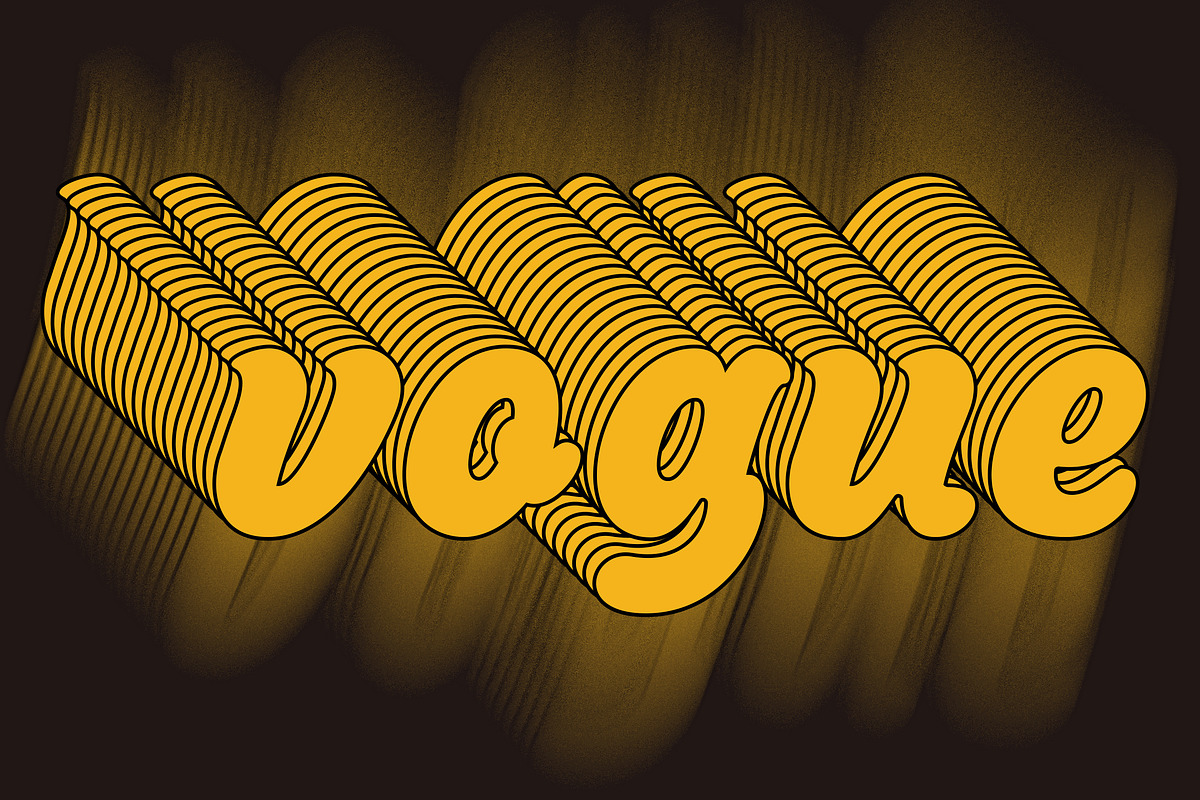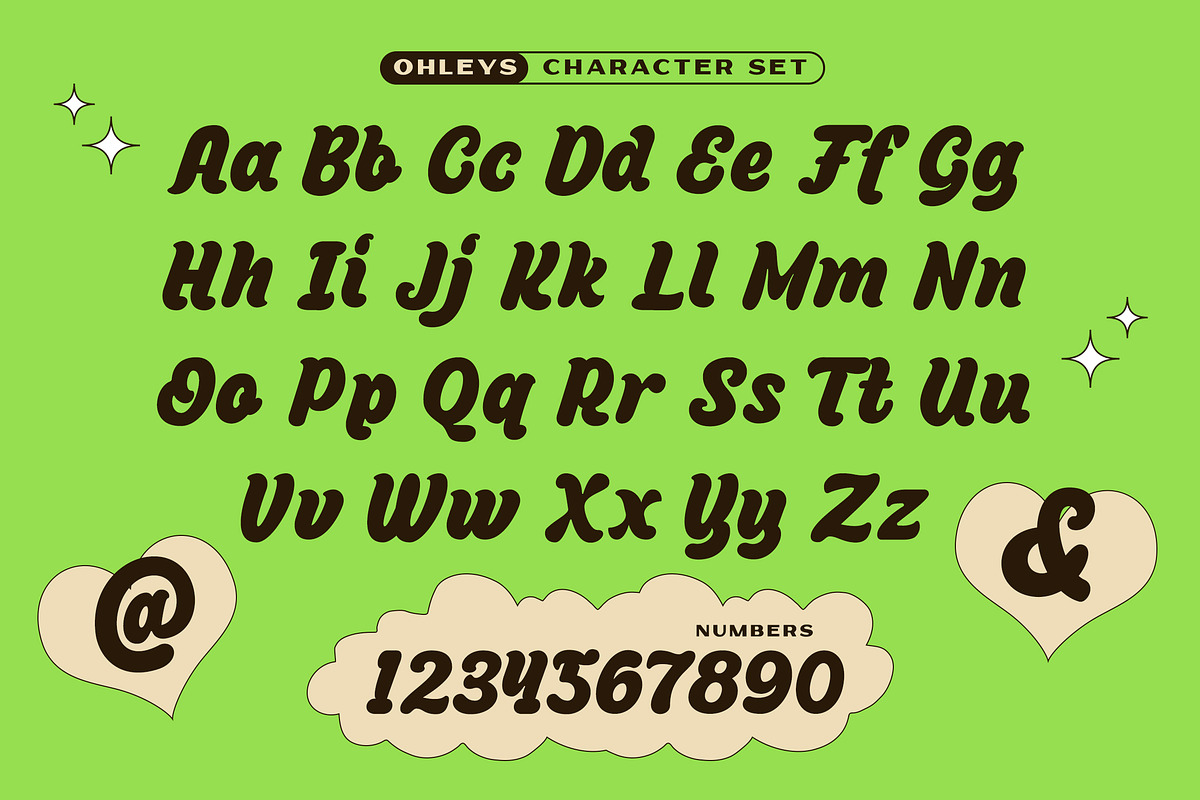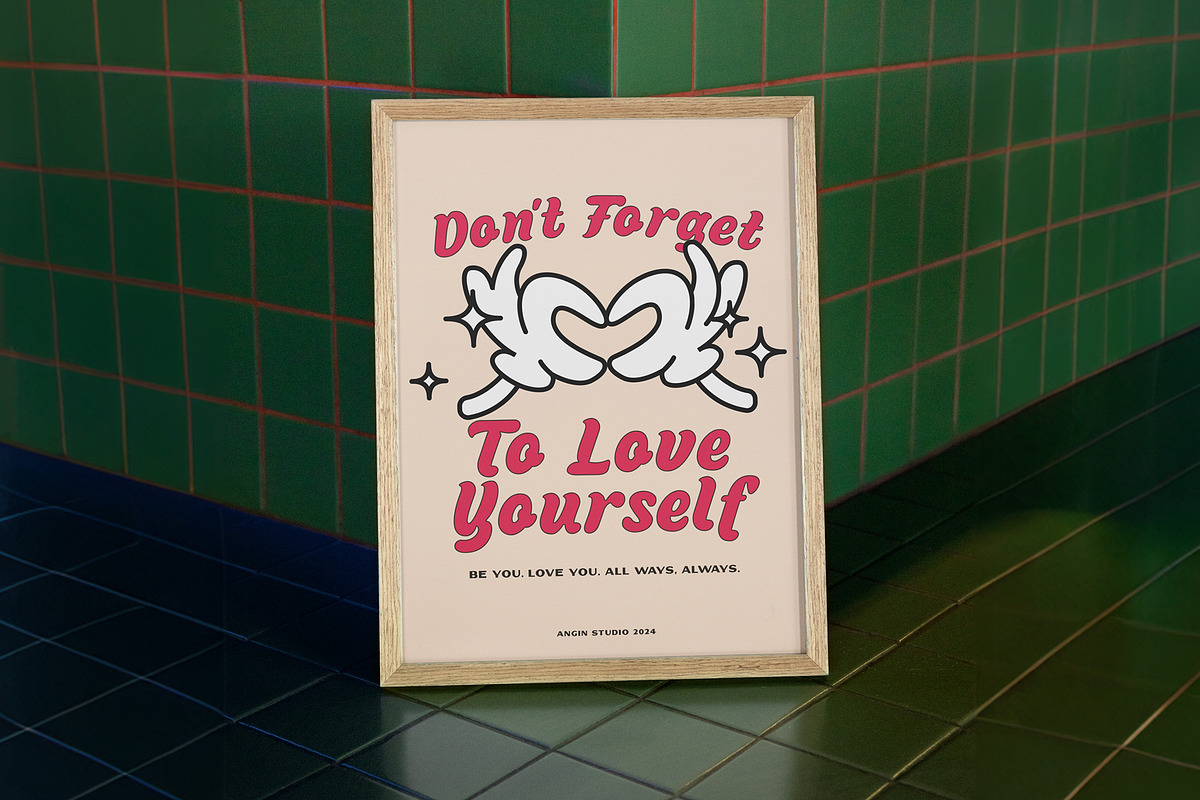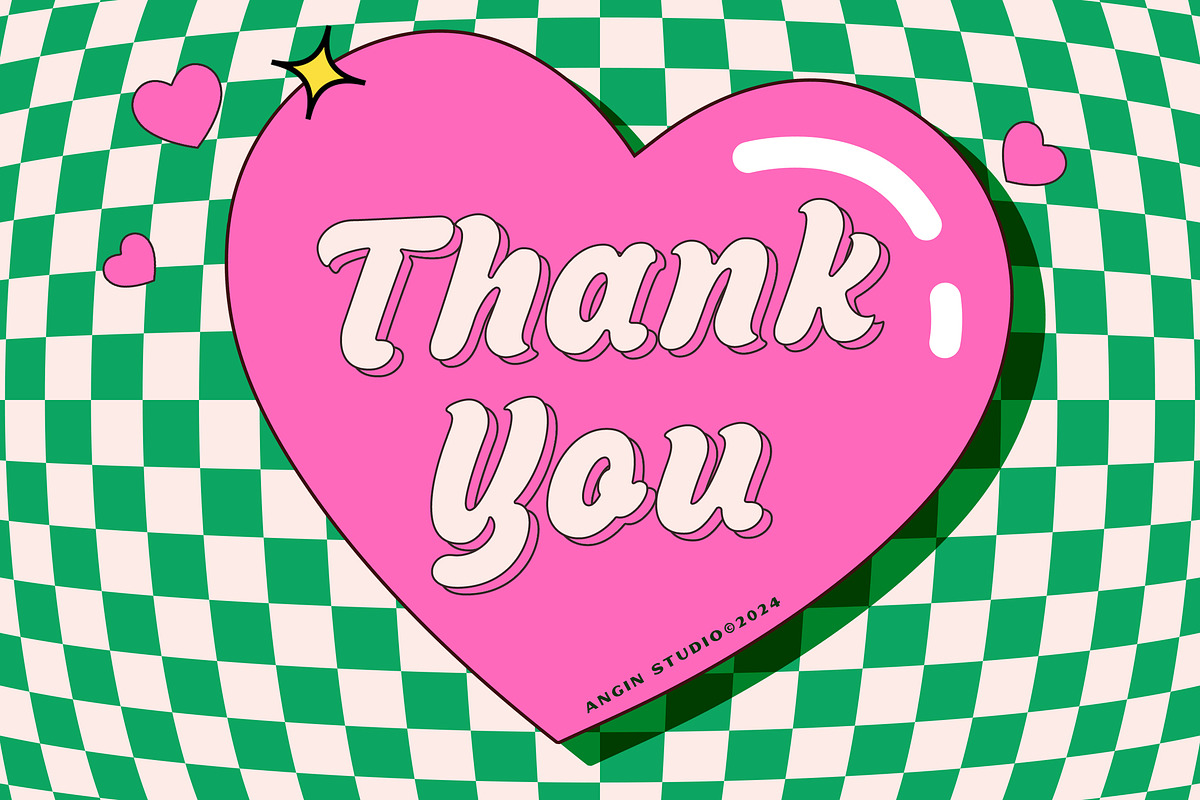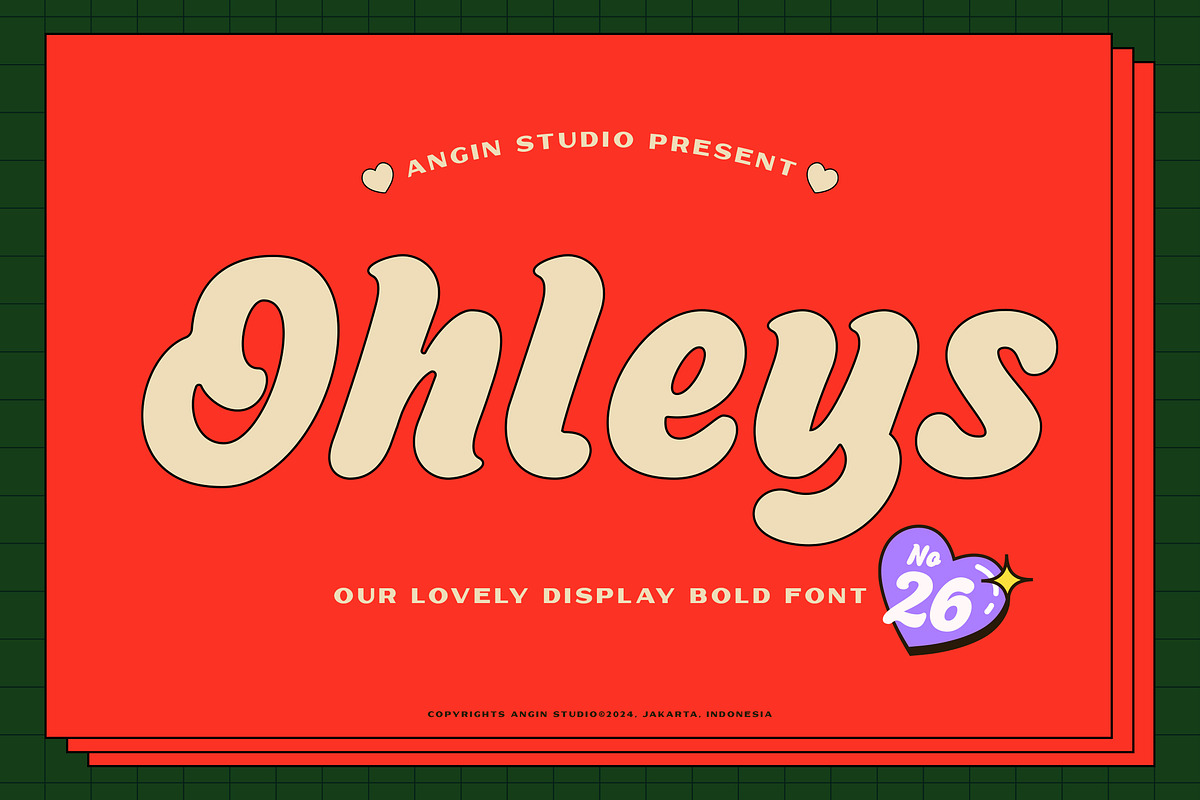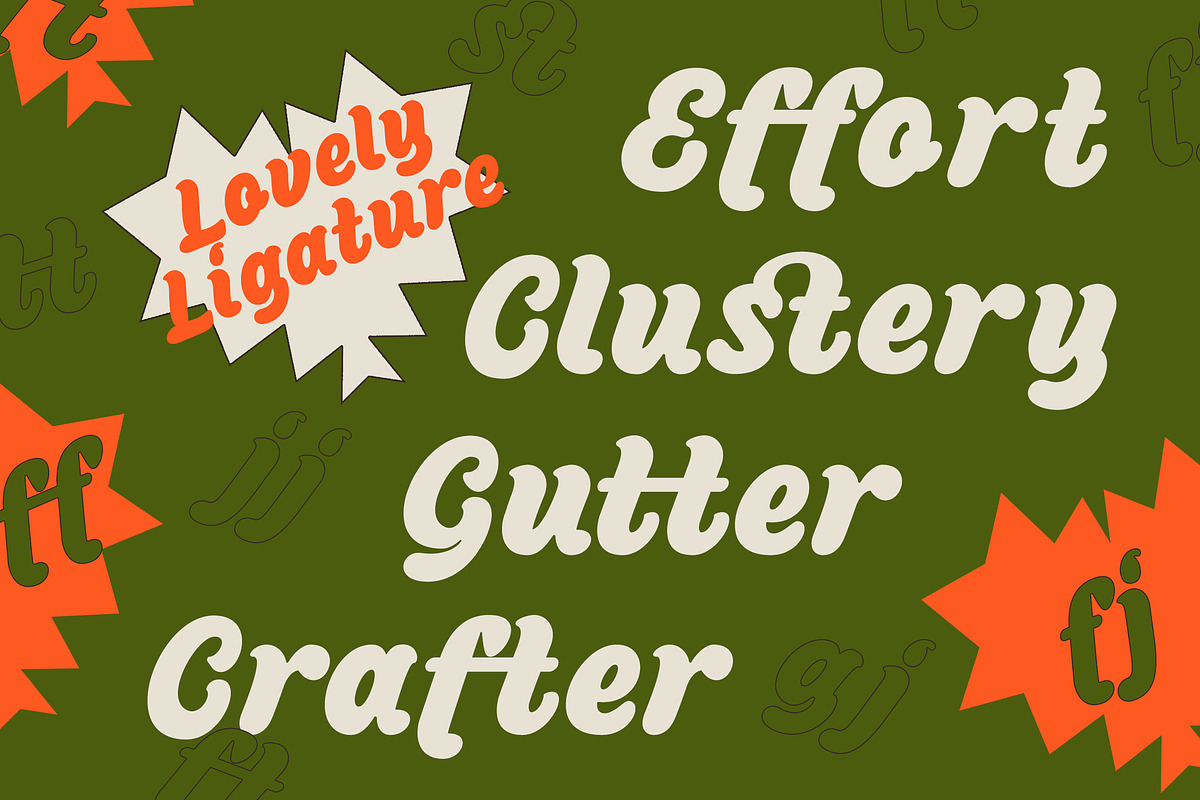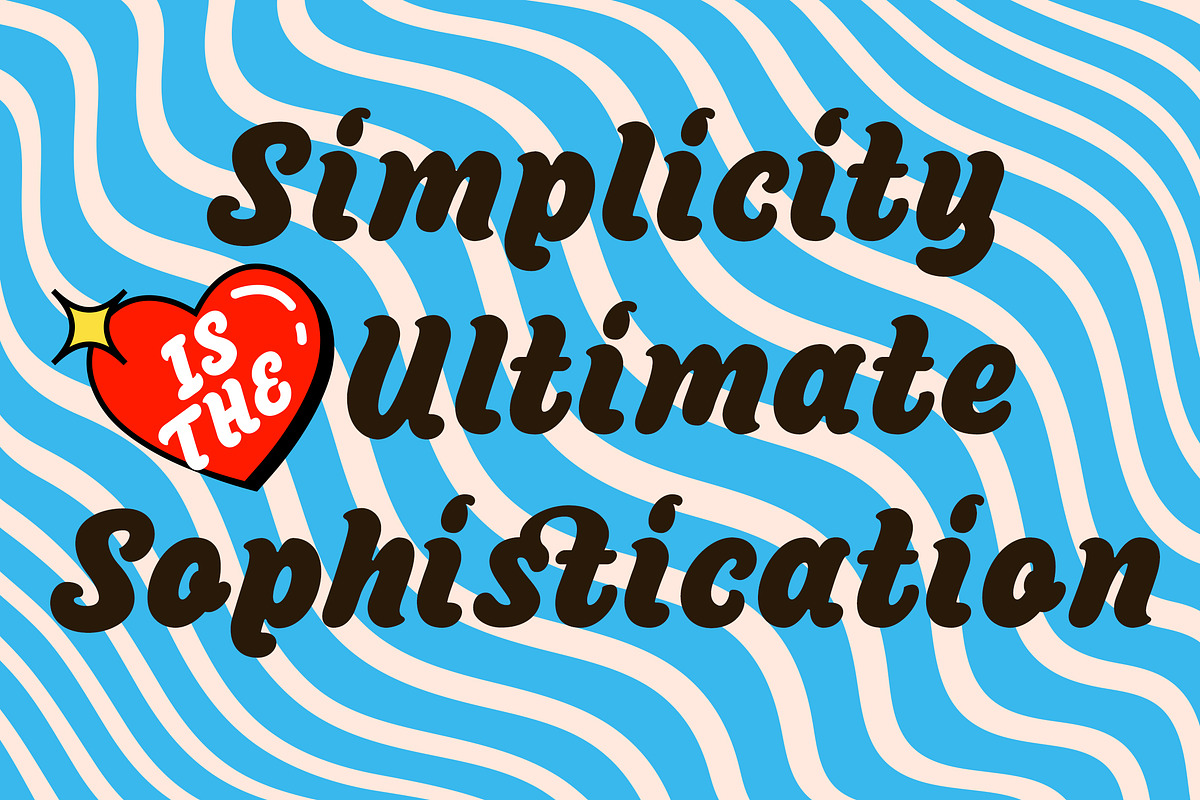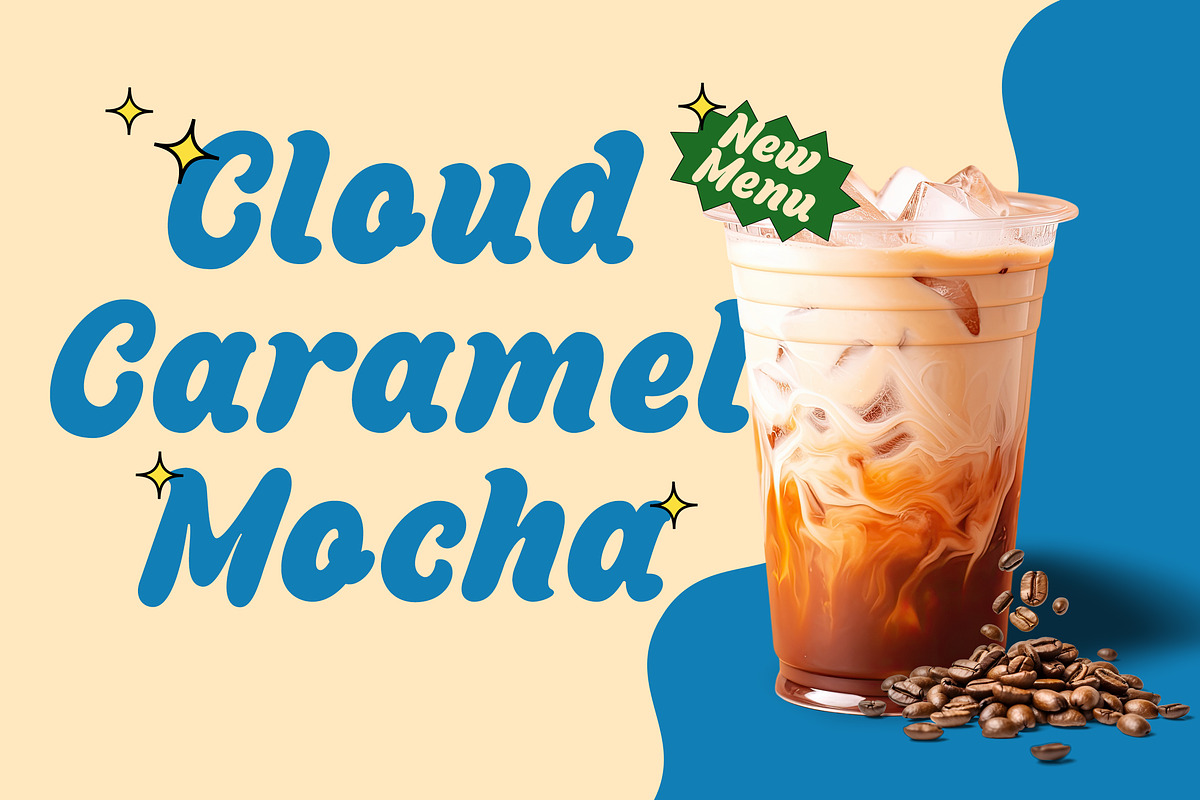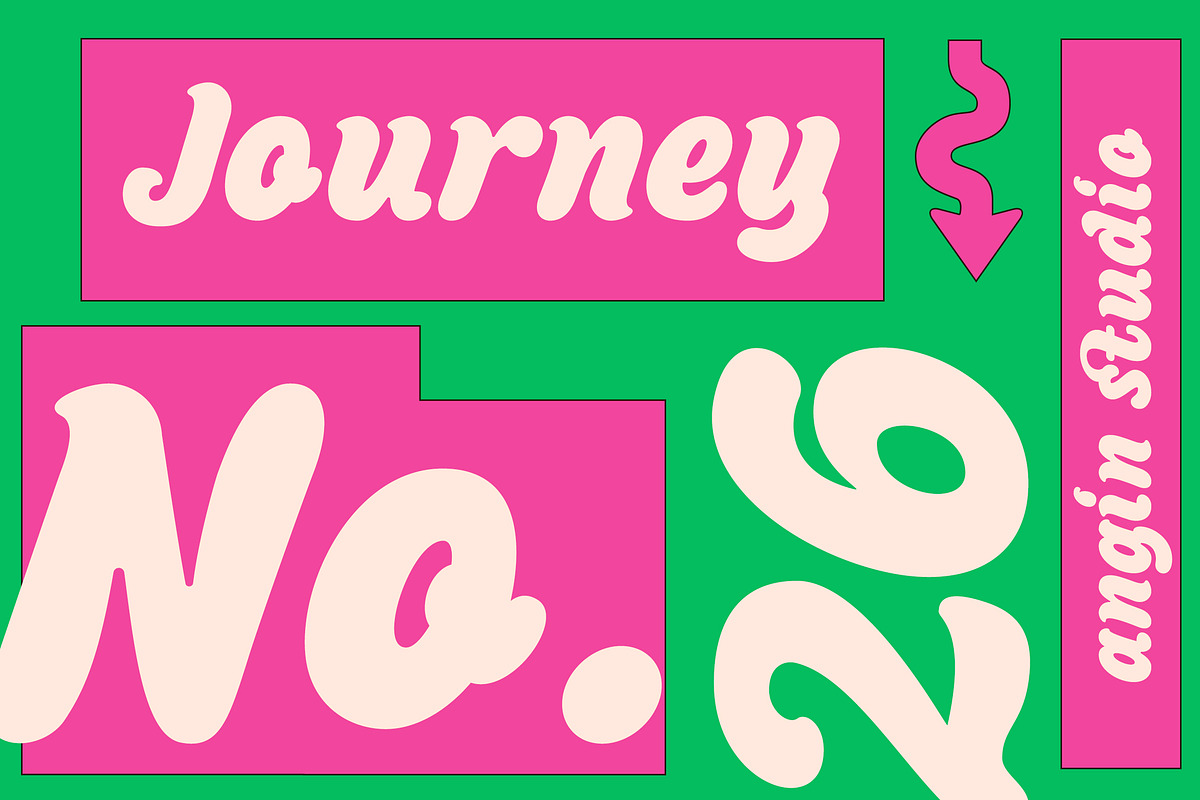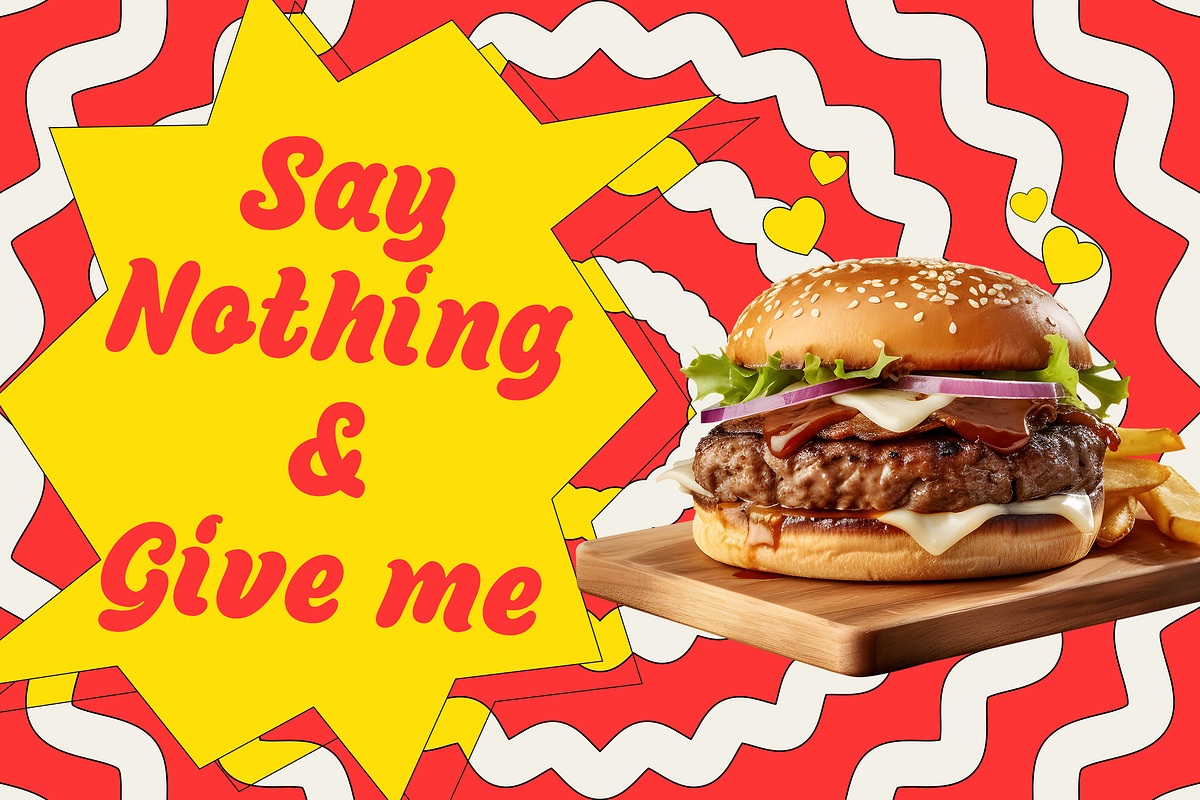
Ohleys Lovely Bold Font
Inspired by our last product, Sundries Bold Script fonts, we're excited to unveil the latest addition to angin studio font family: Ohleys display bold font.
Ohleys isn't just another font; it's a testament to innovation and creativity. With its distinct characteristics, Ohleys seamlessly combines boldness with charm, offering a delightful blend of playfulness and rounded elements. to create something fresh and modern touch for your design needs.
Ohleys stands out from the crowd, making a bold statement with its unparalleled style and sophistication. Whether you're designing a logo, crafting marketing materials, or creating eye-catching graphics, Ohleys empowers you to unleash your creativity like never before. Experience the difference with Ohleys. Embrace boldness. Embrace charm. Embrace the future of design with Ohleys display bold font.